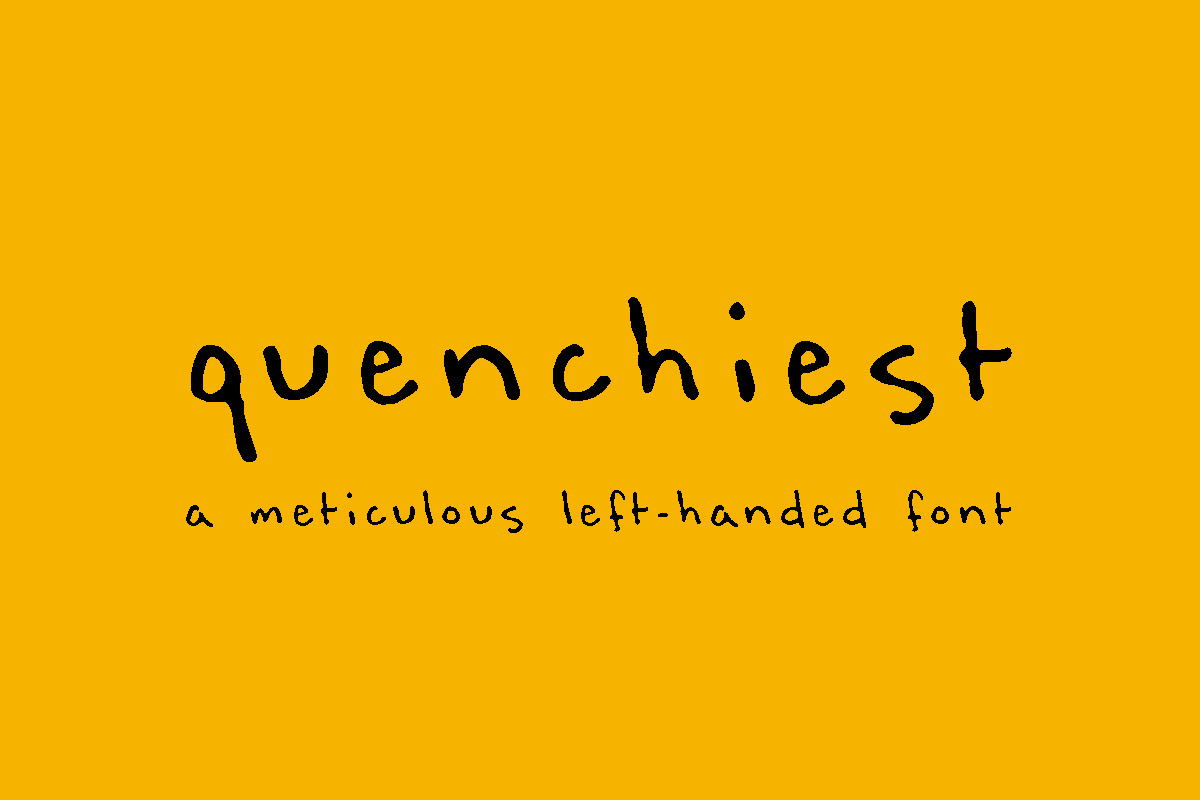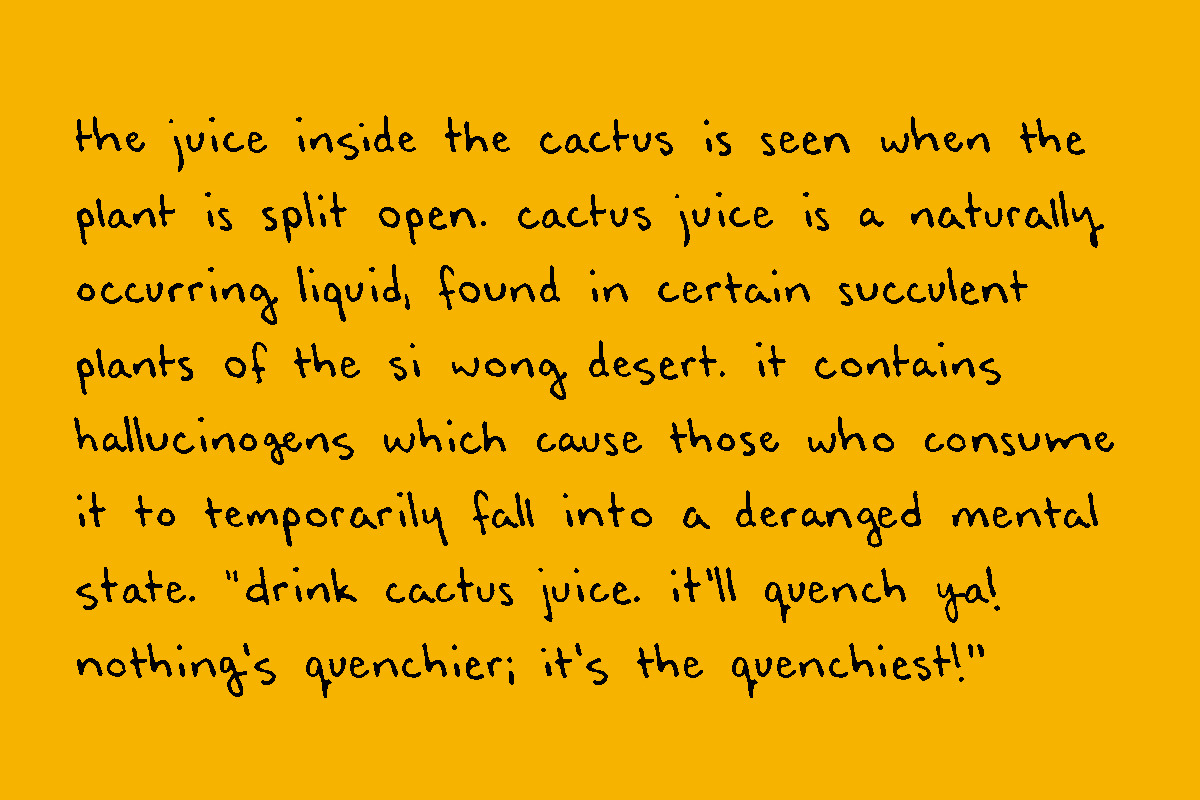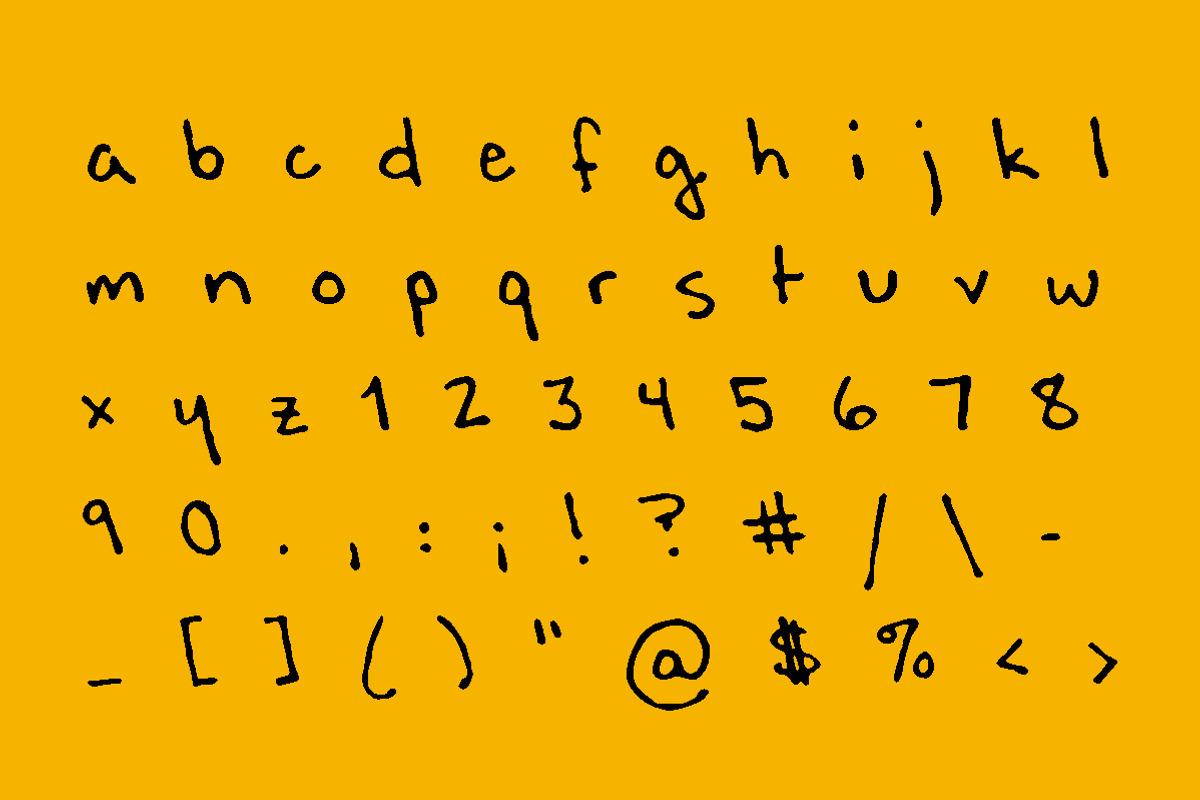
quenchiest - left-handed font
Designed based on the handwriting of artist Noelle Richard (they/them), quenchiest is a lowercase handwritten font with a lefty slant and robust OpenType letter substitution. With four sets of letters and five sets of numbers, quenchiest provides a personal touch to headings and paragraph alike.